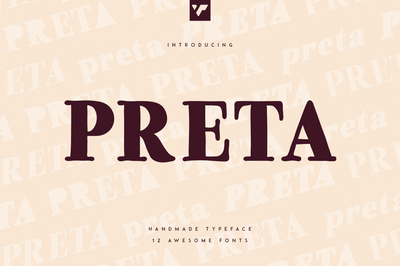
Preta Handwritten Typeface, 12 fonts
Introducing Preta – Handmade typeface – 12 fonts
Preta is handwritten and retro serif typeface loaded with 12 fonts and multilingual support to enchant your next project. Very versatile fonts that works great in large and small sizes.
Preta is perfect for branding projects, home-ware designs, product packaging, magazine headers – or simply as a stylish text overlay to any background image.